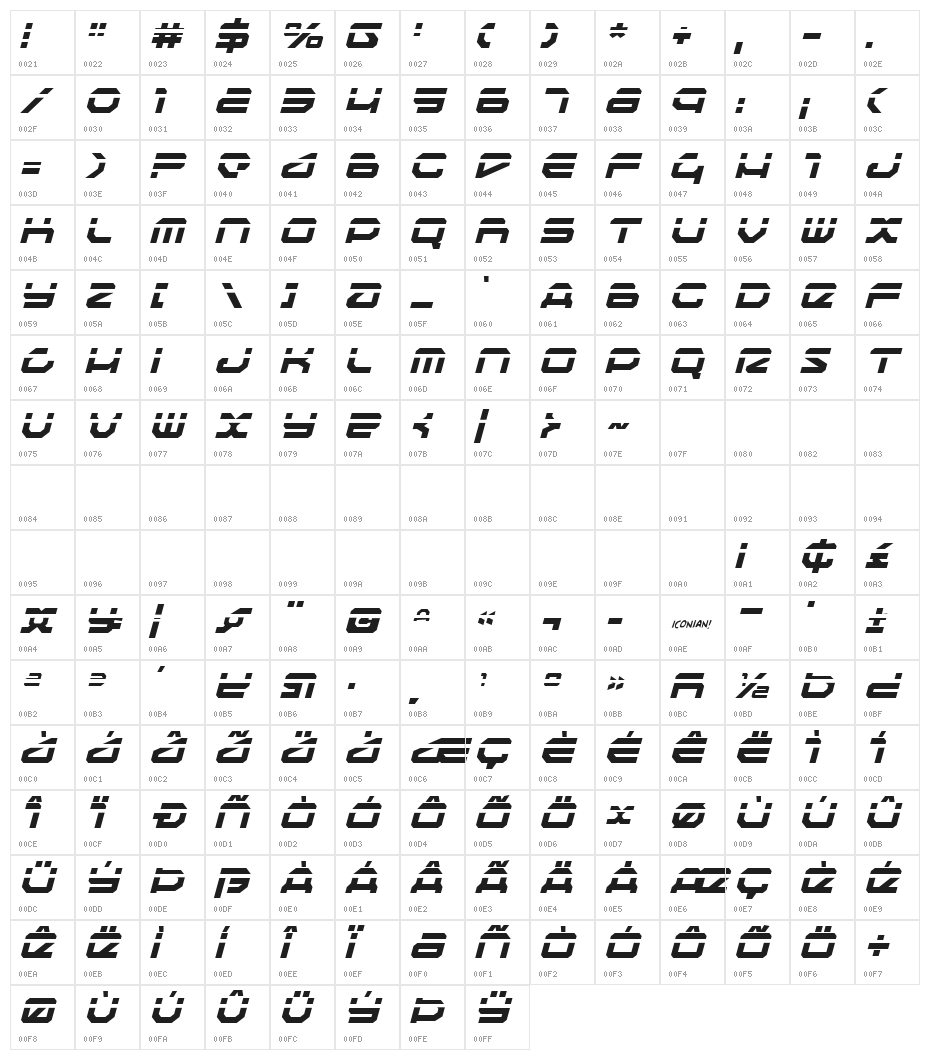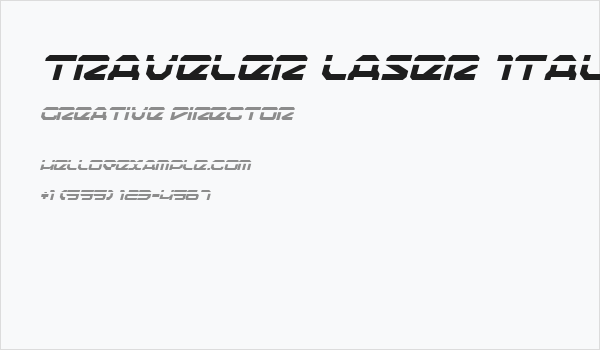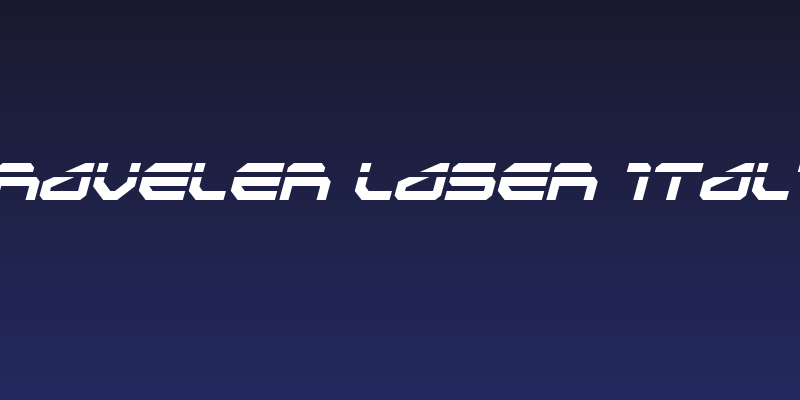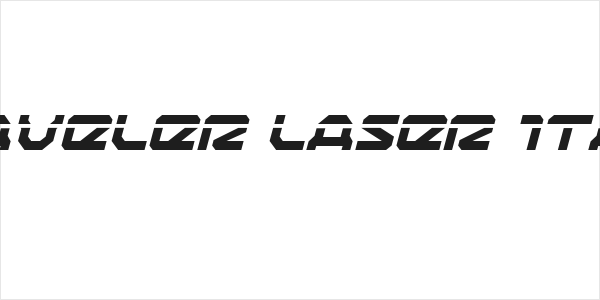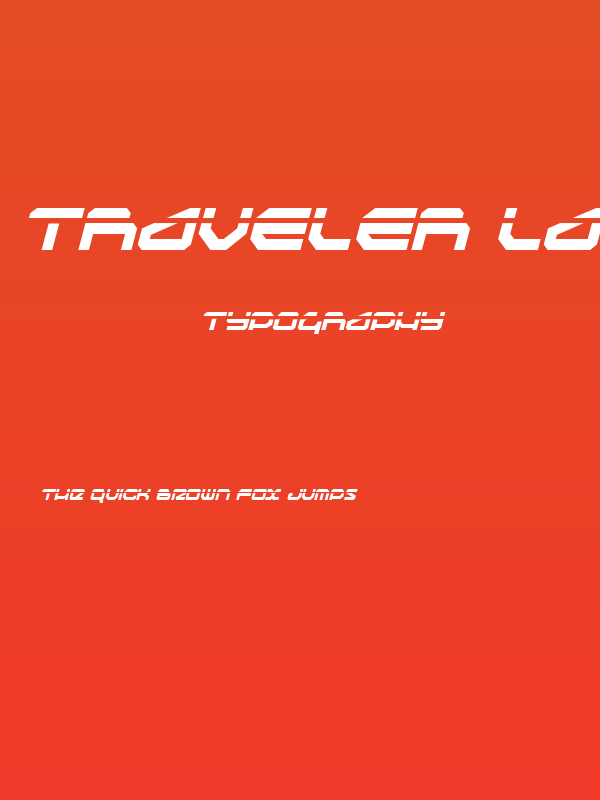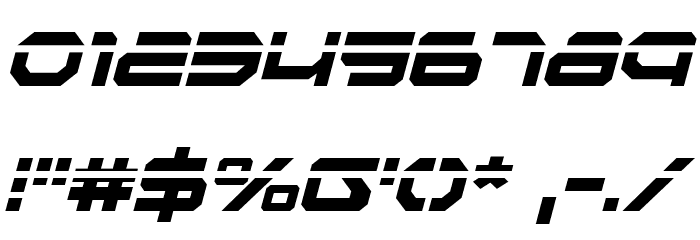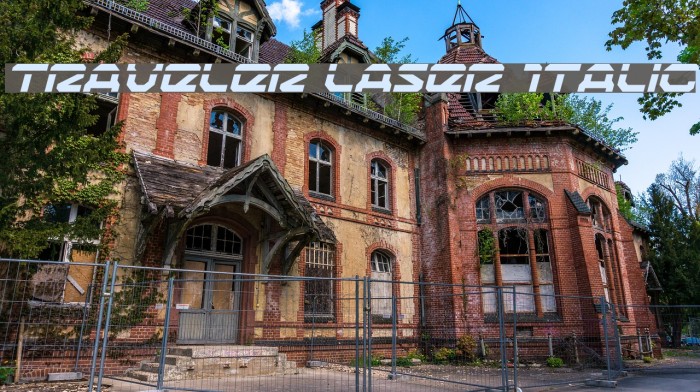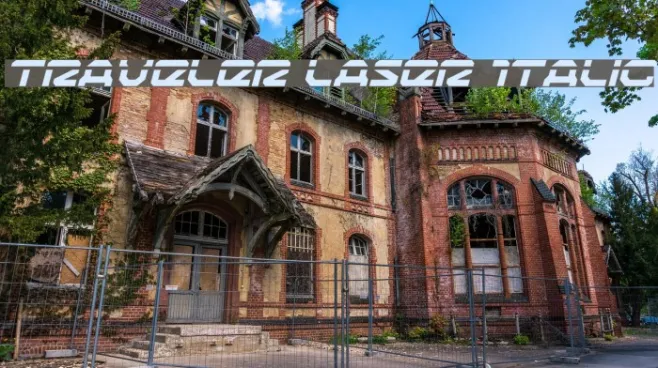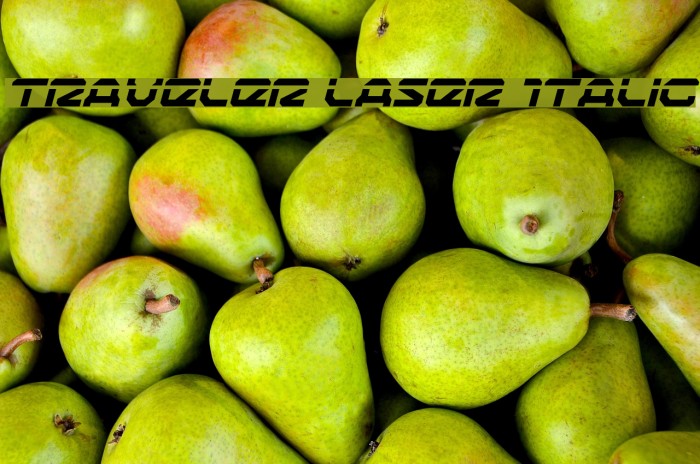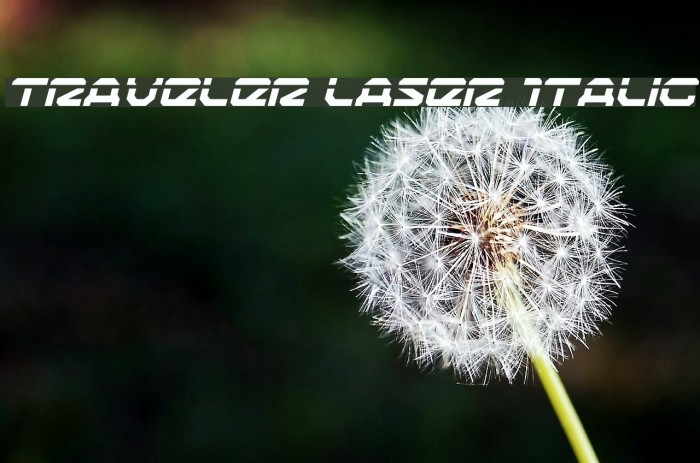
Traveler Laser Italic Font
Traveler Laser Italic Description
This font features a futuristic and angular design, characterized by sharp edges and a dynamic slant that gives it a sense of motion. The uppercase and lowercase letters maintain a consistent geometric style, with each character exhibiting a unique cut-out pattern that enhances its modern appeal. The numerals and special characters follow the same aesthetic, ensuring uniformity across all glyphs. The font's bold and italicized nature adds to its striking appearance, making it ideal for projects that require a strong visual impact.
| Proposed Projects | Ideal for sci-fi themed designs, technology branding, video game titles, and modern advertising campaigns. |